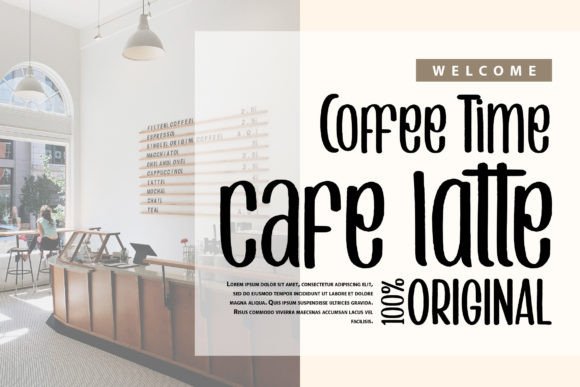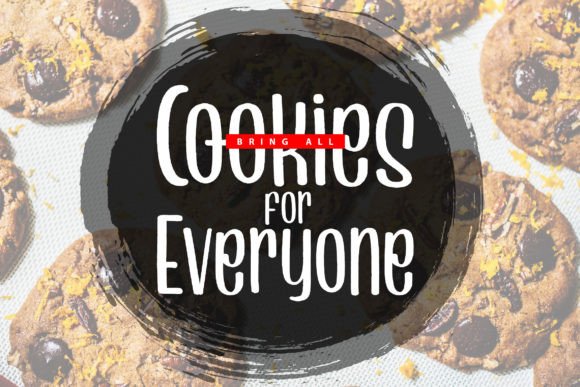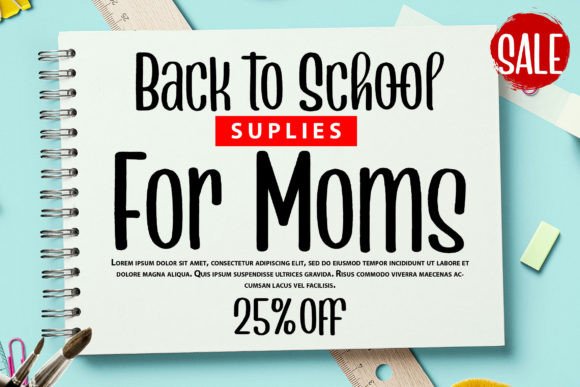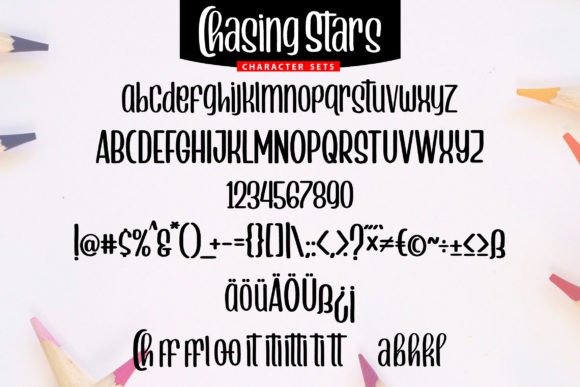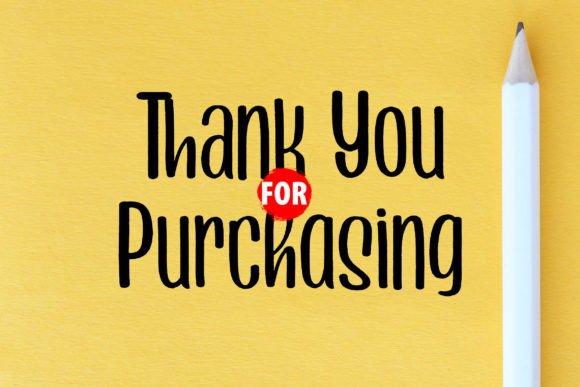
Unleash Your Creativity with Chasing Stars Font: A Whimsical Handwritten Display Font
Are you tired of using the same old fonts in your designs? Do you want to add a touch of personality and whimsy to your projects? Look no further than Chasing Stars Font, an adorable handwritten display font that’s sure to brighten up your designs. In this article, we’ll take a closer look at Chasing Stars Font, its features, and how you can use it to take your designs to the next level.
What is Chasing Stars Font?
Chasing Stars Font is a beautiful handwritten display font that’s perfect for designers and crafters who want to add a personal touch to their projects. This font is whimsical, quirky, and full of character, making it ideal for a wide range of design applications, from branding and advertising to packaging and social media graphics.
Features of Chasing Stars Font
So, what makes Chasing Stars Font so special? Here are just a few of its key features:
- Handwritten style: Chasing Stars Font has a beautiful, handwritten style that’s perfect for creating personal and engaging designs.
- Whimsical and quirky: This font has a playful, whimsical feel that’s sure to add a touch of personality to your designs.
- Display font: Chasing Stars Font is designed specifically for display use, making it perfect for headlines, titles, and other attention-grabbing elements.
- Easy to read: Despite its playful style, Chasing Stars Font is easy to read, even at smaller sizes.
How to Use Chasing Stars Font in Your Designs
Now that we’ve covered the features of Chasing Stars Font, let’s talk about how you can use it in your designs. Here are a few ideas to get you started:
- Branding and advertising: Use Chasing Stars Font to create eye-catching logos, ads, and marketing materials that showcase your brand’s personality.
- Social media graphics: Add a touch of whimsy to your social media graphics, such as Facebook posts, Instagram stories, and Twitter headers.
- Packaging design: Use Chasing Stars Font to create beautiful, eye-catching packaging that stands out on store shelves.
- Party decorations: Create custom party decorations, such as banners, invitations, and garlands, using Chasing Stars Font.
Tips for Getting the Most Out of Chasing Stars Font
To get the most out of Chasing Stars Font, here are a few tips to keep in mind:
- Use it sparingly: Because Chasing Stars Font is a display font, it’s best to use it sparingly to create emphasis and visual interest.
- Pair it with other fonts: Experiment with pairing Chasing Stars Font with other fonts to create a unique and visually appealing combination.
- Experiment with colors: Don’t be afraid to experiment with different colors and textures to add depth and interest to your designs.